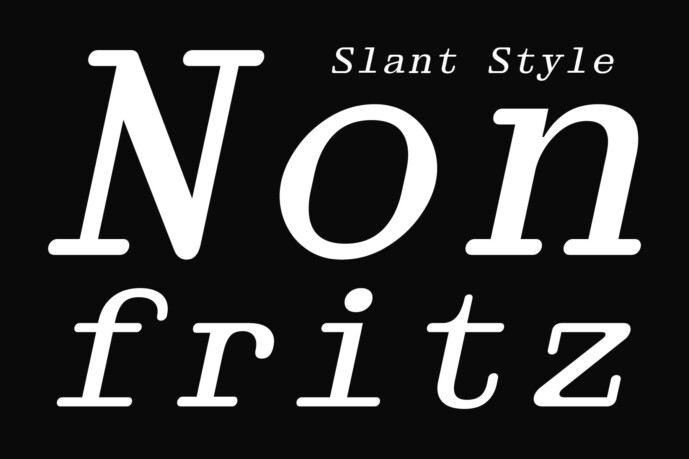
Nonfritz Slant Font
Designer: studiogulden
Nonfritz Slant is a single-weight monospaced font. With its clean, consistent appearance, Nonfritz is perfect for projects requiring precise alignment, such as programming, technical documentation, or data visualization. Supporting 268 languages, this versatile font caters to diverse international needs. Its modern aesthetic and wide language support make it an excellent choice for creating professional and polished designs.